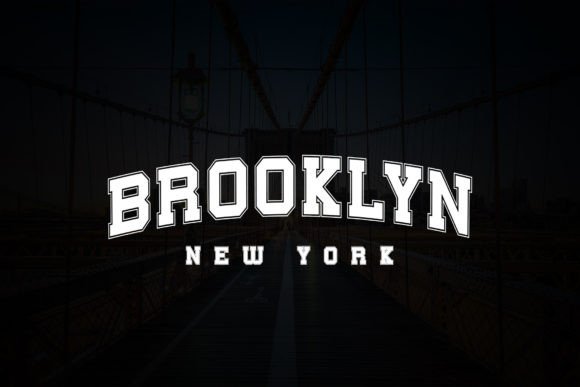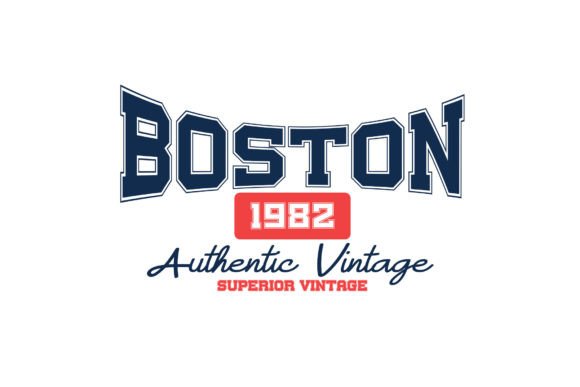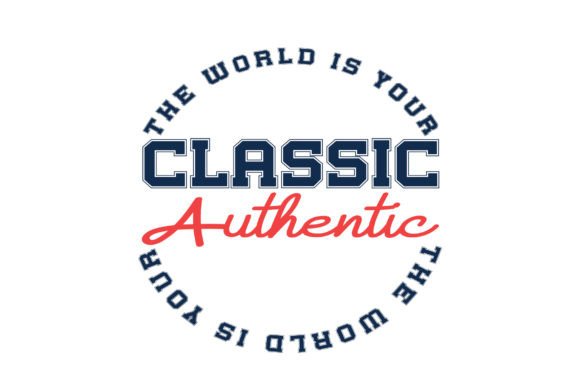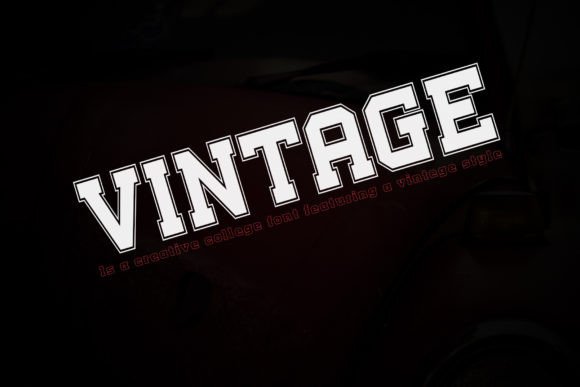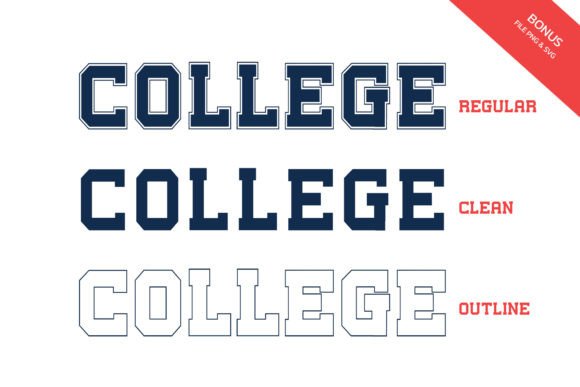
Introducing College Font: A Vintage-Style Display Font for Creative Projects
Are you a designer or crafter looking for a unique and versatile font to elevate your creative projects? Look no further than College Font, a creative college font that features a vintage-style display with only angled lines and stubby serifs. In this article, we’ll explore the features and benefits of College Font, and how it can be used to create stunning designs for t-shirts, logos, web graphics, and more.
A Unique and Eye-Catching Font
College Font is a one-of-a-kind font that is sure to grab attention. Its vintage-style display features only angled lines and stubby serifs, giving it a distinctive and retro look. The font is perfect for designers and crafters who want to add a touch of nostalgia and personality to their designs. Whether you’re creating a logo, t-shirt, or web graphic, College Font is sure to make your design stand out.
Redesigned European Accents and Cyrillic Support
One of the standout features of College Font is its redesigned European accents and Cyrillic support. This makes it an ideal font for designers who need to create content for numerous European languages. The font includes a range of accents and characters, ensuring that you can create authentic and accurate text for a variety of languages. Whether you’re designing for a global audience or simply want to add a touch of international flair to your designs, College Font has got you covered.
College Font is a versatile font that can be used for a wide range of design projects. Its bold and eye-catching style makes it perfect for:
- T-shirts: Add a touch of personality to your t-shirt designs with College Font.
- Logos: Create a memorable and distinctive logo for your brand or business.
- Web graphics: Use College Font to add a touch of vintage flair to your website or social media graphics.
- Posters and flyers: Create eye-catching posters and flyers that grab attention.
- Crafting projects: Use College Font to add a personal touch to your crafting projects, such as scrapbooking or card making.
Why Choose College Font?
So why choose College Font for your design projects? Here are just a few reasons:
- Unique and eye-catching style: College Font is a one-of-a-kind font that is sure to grab attention.
- Versatile: The font can be used for a wide range of design projects, from t-shirts to web graphics.
- Redesigned European accents and Cyrillic support: College Font includes a range of accents and characters, making it perfect for designers who need to create content for numerous European languages.
Tips for Using College Font
Here are a few tips for using College Font in your design projects:
- Experiment with different sizes and colors: College Font looks great in a variety of sizes and colors, so don’t be afraid to experiment.
- Pair with other fonts: College Font pairs well with a range of other fonts, so try pairing it with a sans-serif font for a bold and modern look.
- Use for headlines and titles: College Font is perfect for headlines and titles, where its bold and eye-catching style can really shine.
College Font is a unique and versatile font that is perfect for designers and crafters who want to add a touch of vintage flair to their designs. With its redesigned European accents and Cyrillic support, College Font is an ideal font for designers who need to create content for numerous European languages. Whether you’re creating t-shirts, logos, web graphics, or crafting projects, College Font is sure to elevate your designs and make them stand out. So why not give College Font a try today and see the difference it can make in your design projects?